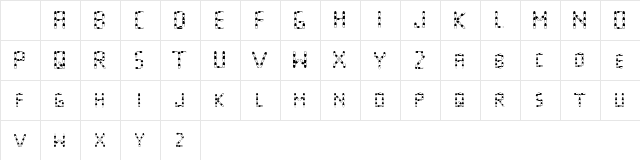
pills are good Regular
Design Context for pills are good Typeface
pills are good is a composed and adaptable typeface that performs quietly and consistently across a wide range of design contexts.